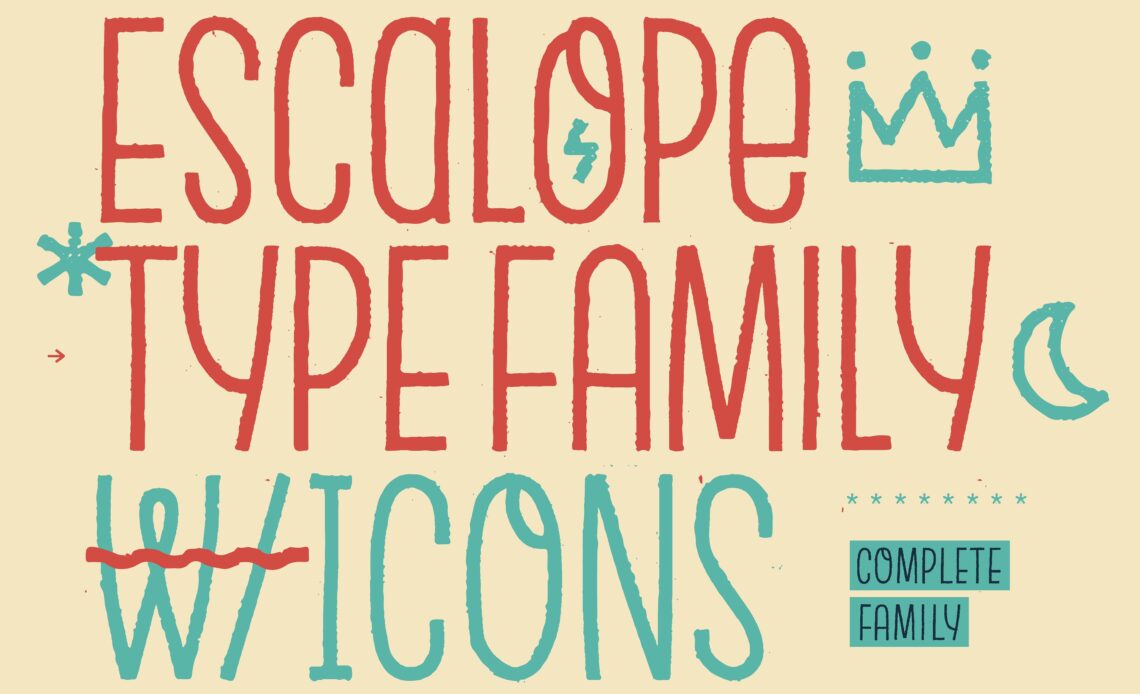
Unleash your creativity with Escalope, the ultimate sans serif rounded font that breathes life into your designs. This hand-drawn font, crafted by the talented team at antipixel, boasts a unique and playful personality that commands attention. Its carefully crafted curves and smooth lines create a relaxed and jovial atmosphere, making it perfect for projects that seek to evoke a sense of joy and lightheartedness. Whether you're a seasoned designer or just starting out, Escalope is the perfect companion for your creative journey.
Explore the endless possibilities that await with Escalope. From whimsical invitations and cheerful posters to captivating social media posts and eye-catching branding, this font knows no limits. Its versatility shines through, effortlessly adapting to a multitude of design styles. Let Escalope's infectious charm elevate your projects, captivating audiences with its playful demeanor.
Dive into the world of Escalope and discover a treasure trove of matching icons that enhance your designs with a cohesive and striking visual experience. Say goodbye to the hassle of hunting for separate icon packs; with Escalope, you have everything you need at your fingertips. Elevate your projects with delightful illustrations that seamlessly complement the font's playful spirit.
But Escalope is not just a pretty face; it's also incredibly easy to use. With its user-friendly interface and extensive language support, you can effortlessly integrate Escalope into your design workflow and unleash your creativity without any technical hurdles. Experience the joy of seamless integration and watch your designs come to life with effortless grace.